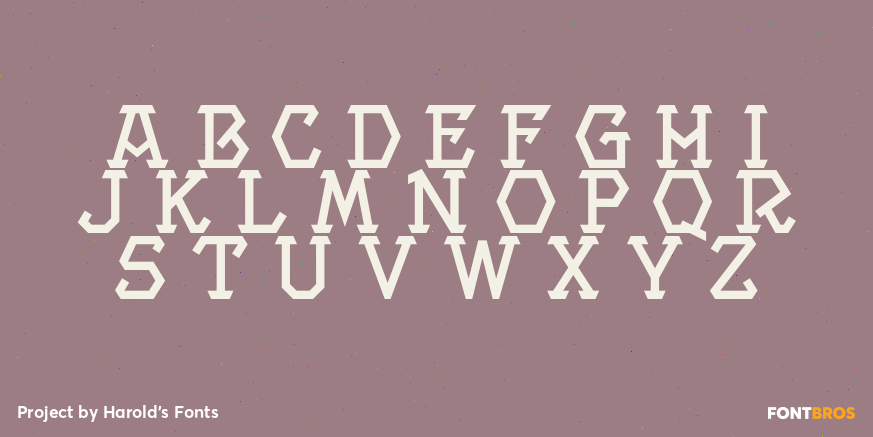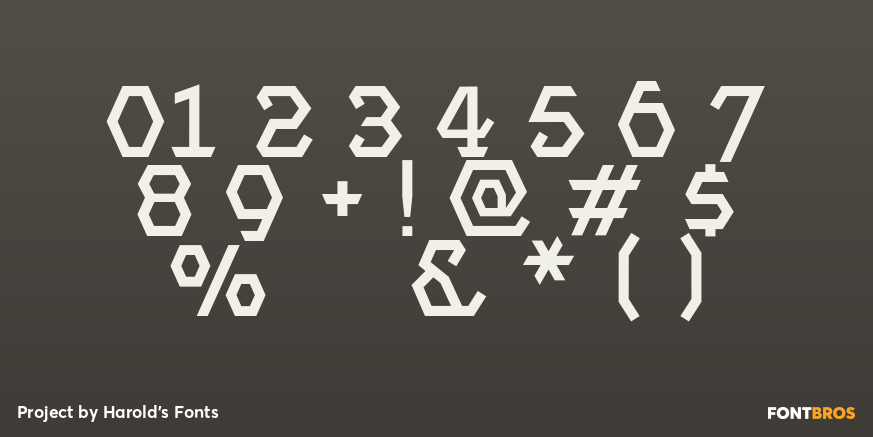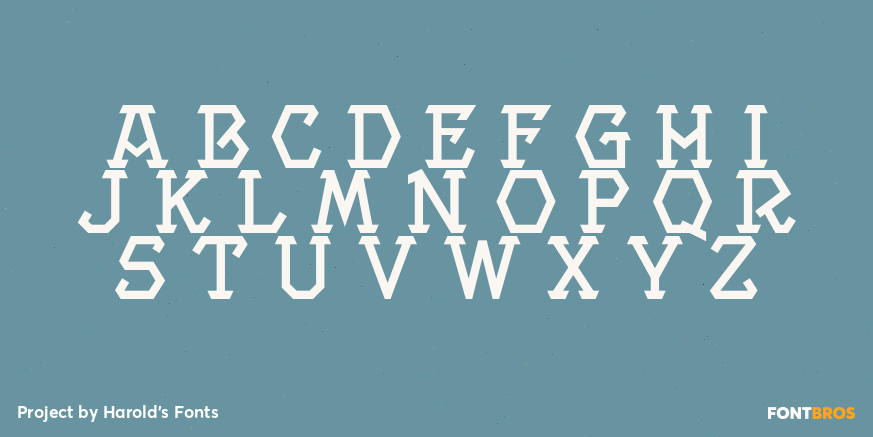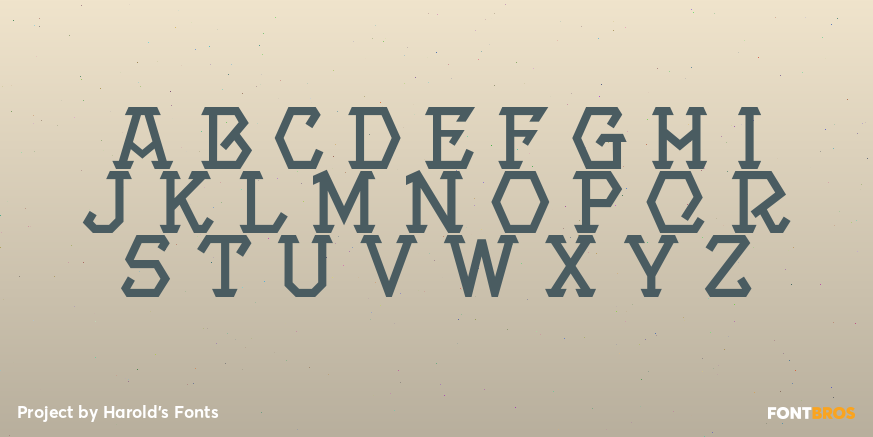
Project
Font Family by Harold's Fonts
The five PROJECT fonts were inspired by the hand-lettered titles of the films "Project Moon Base" and "Crash of Moons." Bold and stately, the letters somehow suggest the past more than the future, as they were intended. I've expanded the design to include Light, Medium, Bold, Bold Inline, and 3000 (the 3-D style)--for a variety of uses.